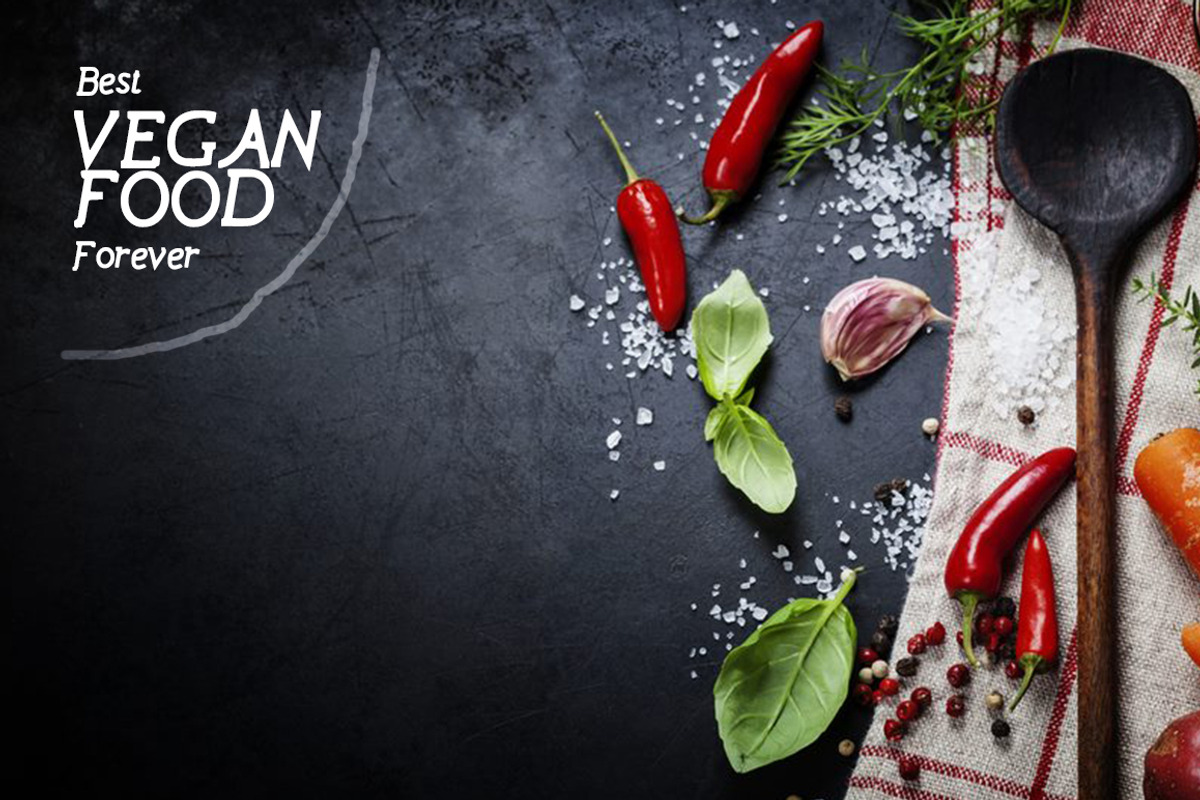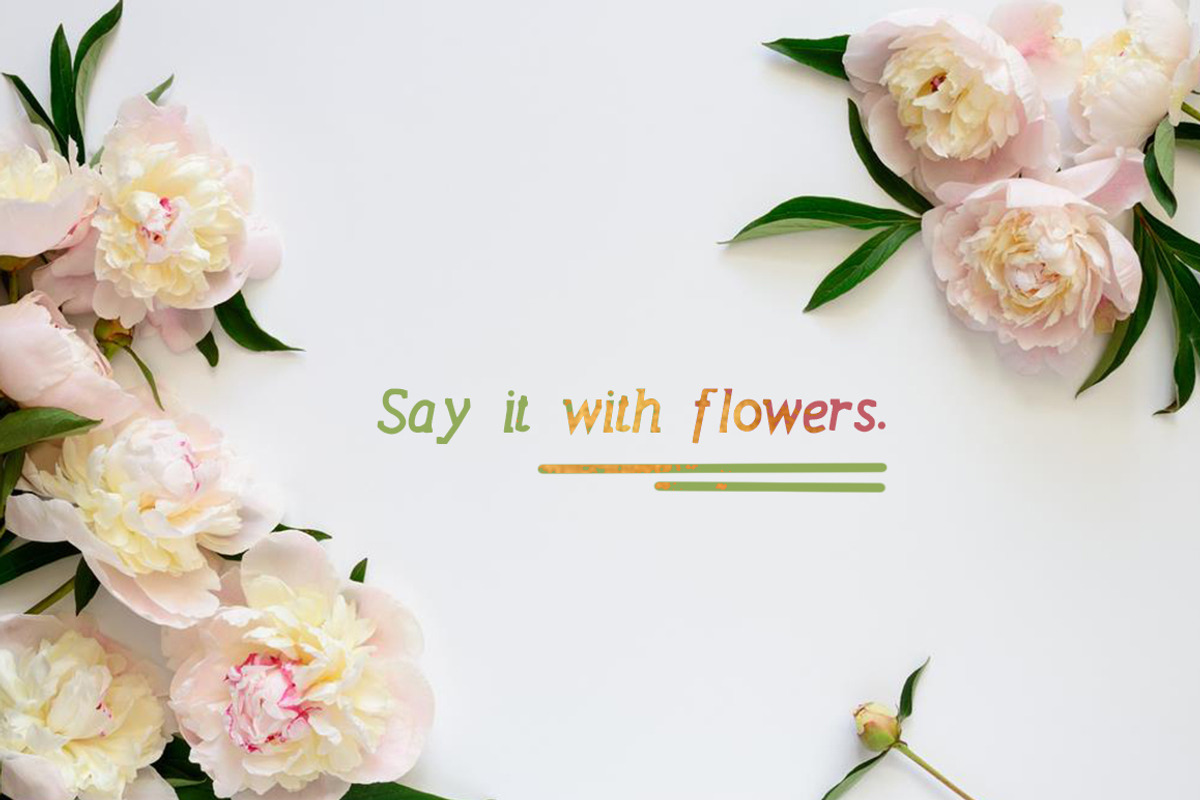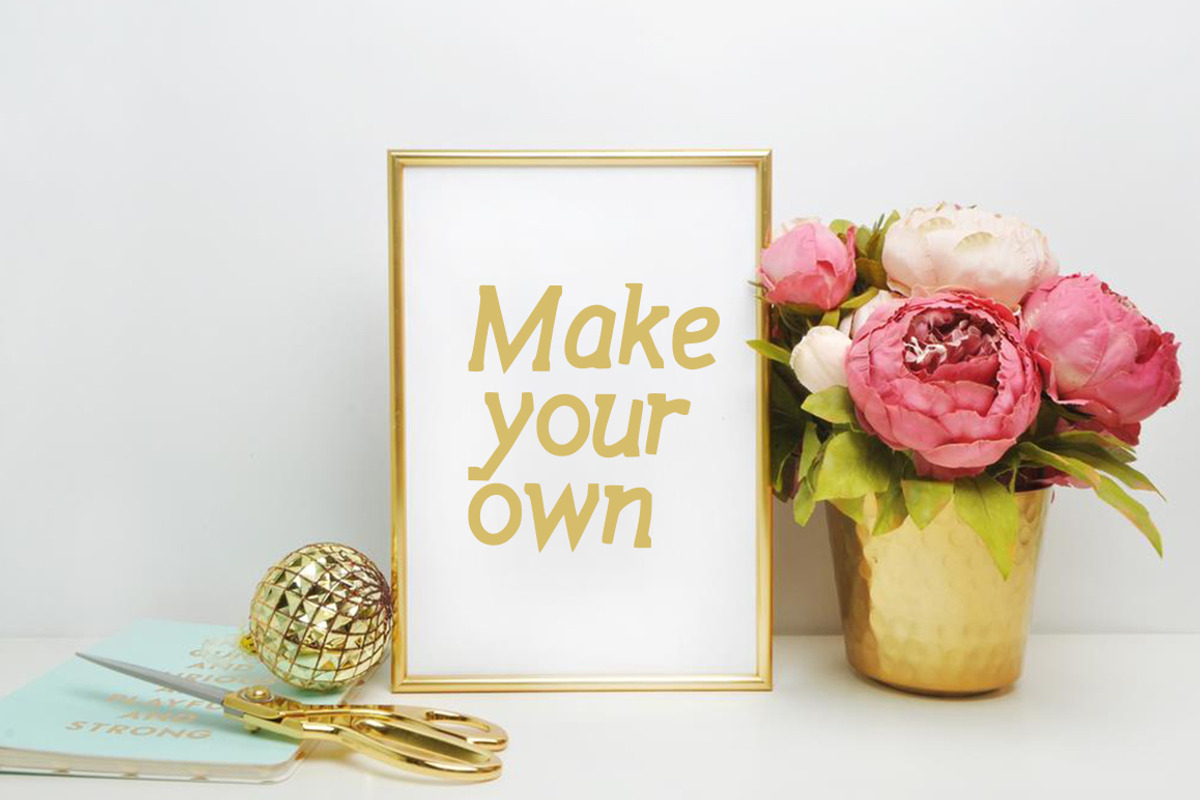
Peony Font
Peony Font by SmashingStudio is a font selected for branding, posters, packaging, typography.
Why Peony Font is worth a look
Peony Font by SmashingStudio fits naturally into Branding, posters, packaging, typography.